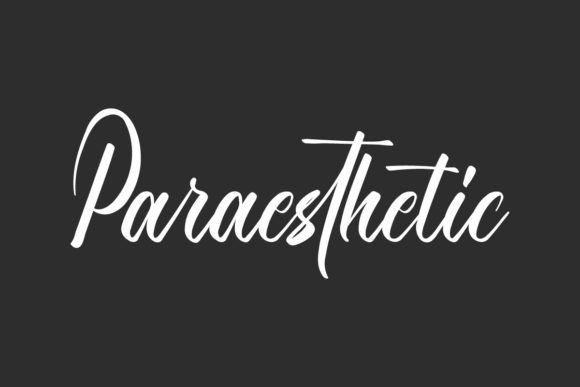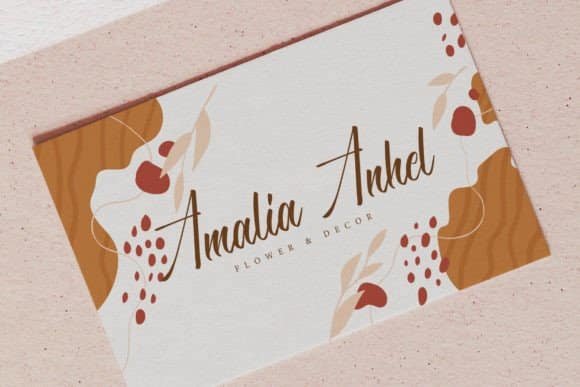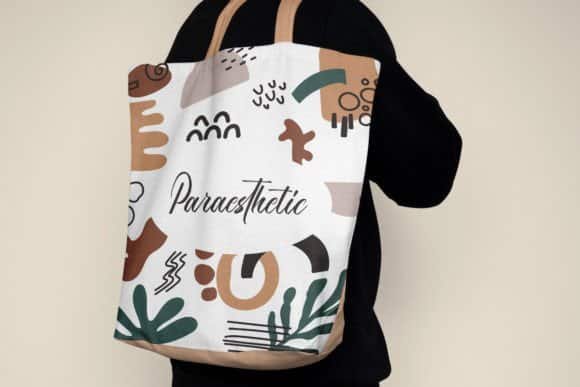
Paraesthetic is a beautiful calligraphy script font with stunning looks. When you look at this font, you will feel the beauty that wafts like flower petals in the wind. This font will be suitable for many industries, such as advertisement, art, café, hotel and resort, fashion, florist, handicrafts, jewelry, perfume, printing, publishing, skincare, wedding organizer, and more!